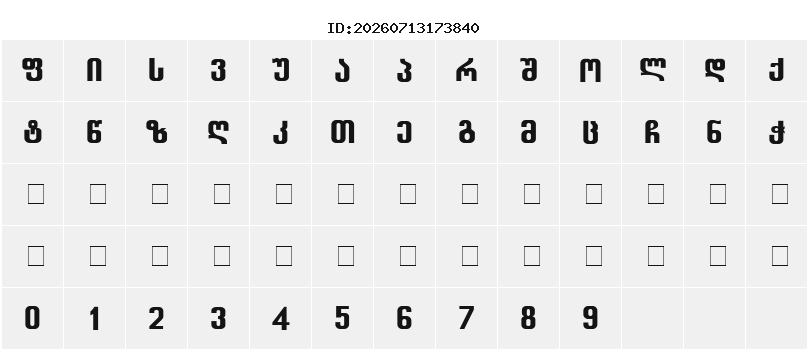
Balavery-ITV Preview
• Font Name: Balavery-ITV
• Font ID: FontMonger:Balavery-ITV
• Full Font Name: Balavery-ITV
• PostScript Name: Balavery-ITV
• Character Count: 70
About Balavery-ITV.ttf
Balavery-ITV.ttf is a modern, elegant sans-serif font designed for ultimate readability and visual harmony. Perfect for branding, headlines, web design, and print materials.